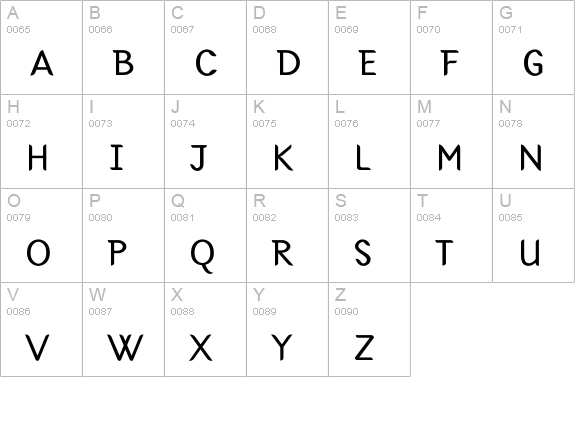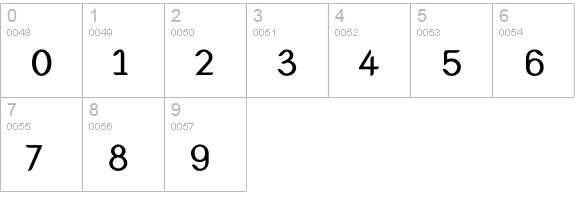
GreenTerrorRegular is a bold and eye-catching font that exudes power and strength. With its sharp edges and distinct style, this font is perfect for making a statement in your designs. Whether you're creating posters, logos, or promotional materials, GreenTerrorRegular will grab your audience's attention and leave a lasting impression. The best part? GreenTerrorRegular is completely free to download at FontsMarket.com. So go ahead and add this unique font to your collection today and watch your designs come to life with a touch of boldness and attitude.